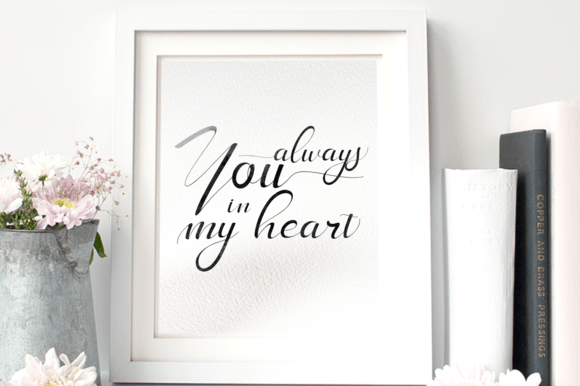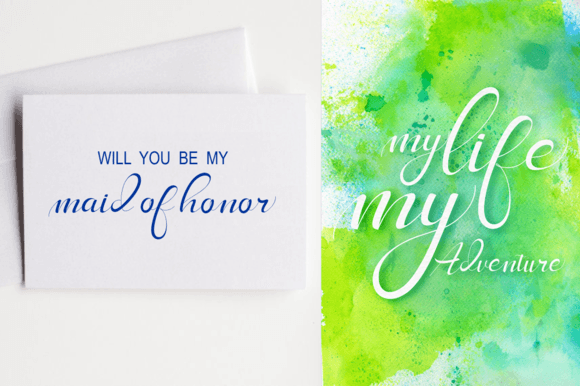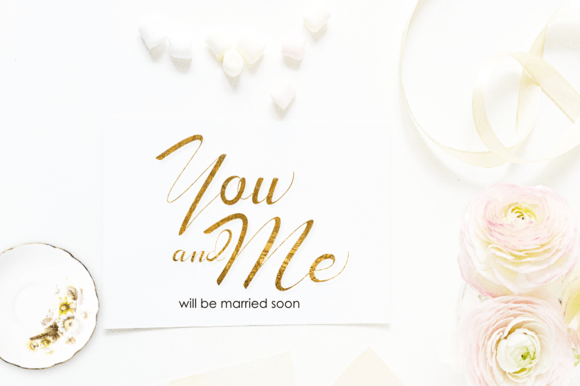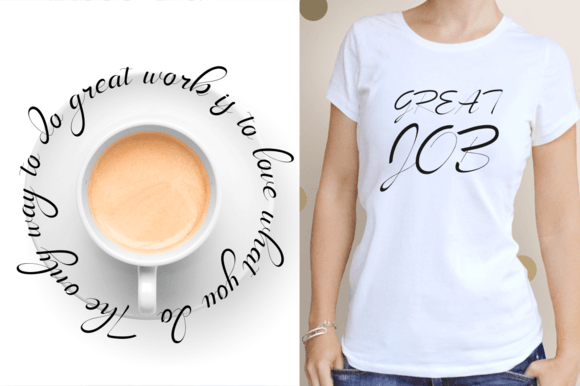
Introduction to Longshine Font
LongShine Script is a fluid handwritten calligraphy font.
Combining calligraphy typefaces with a free-flowing and moving baseline It has a casual, yet elegant touch.